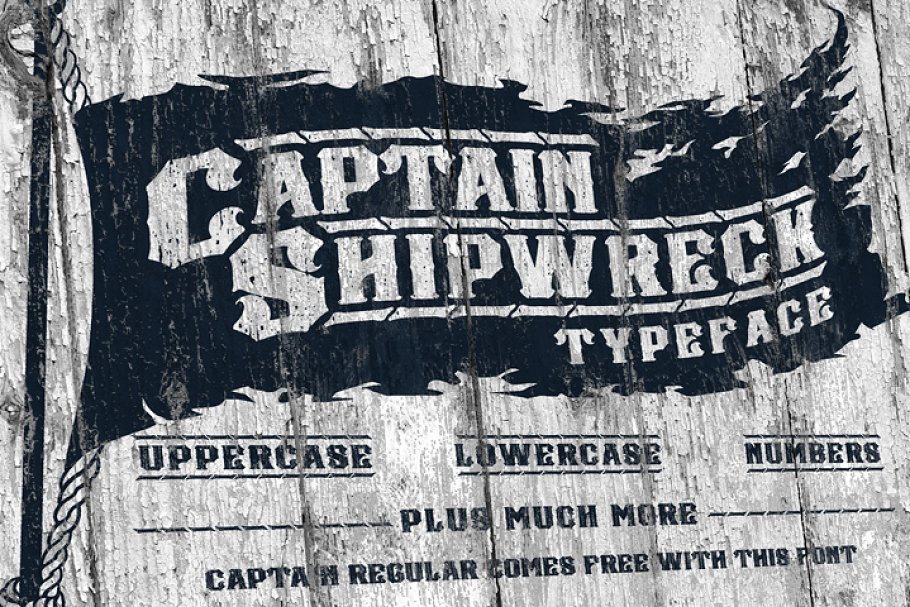
Are you tired of boring and plain fonts? Look no further than Captain Shipwreck font designed by Jon Swinn. This uniquely distressed font is perfect for anyone looking to add a bold and aged rugged look to their designs.
Captain Shipwreck font family includes all uppercase, lowercase, numbers, and many more extra glyphs, making it versatile for various design themes. The font design is influenced by beer labels, biker gang jackets, pirate and outlaw themes, and is perfect for bars, pubs, pirate, navy, seafarer, alcohol products, western/cowboy, card game/gambling, biker gang, tattoos, emblems, and crests, old military, and hunting designs.
This font is not just any font, it is designed to give a traditional bold and aged rugged look, with a distressed appearance that gives a worn paint appearance. Captain Shipwreck font is perfect for bold headings, making it the best font for anyone looking to make a statement.
Captain Shipwreck font is not only unique and versatile, but it also comes with a free clean version called Captain Regular, which can be used for any design. You can check out more close-up displays of Captain Shipwreck font here https://www.behance.net/gallery/19453785/Captain-Shipwreck-Typeface, and take a look at what Captain Regular font looks like here https://www.behance.net/gallery/19456591/Captain-Regular-Typeface.
Don't settle for boring fonts, elevate your designs with Captain Shipwreck font today. Get ready to make a statement and stand out with this one-of-a-kind font that is sure to capture anyone's attention.